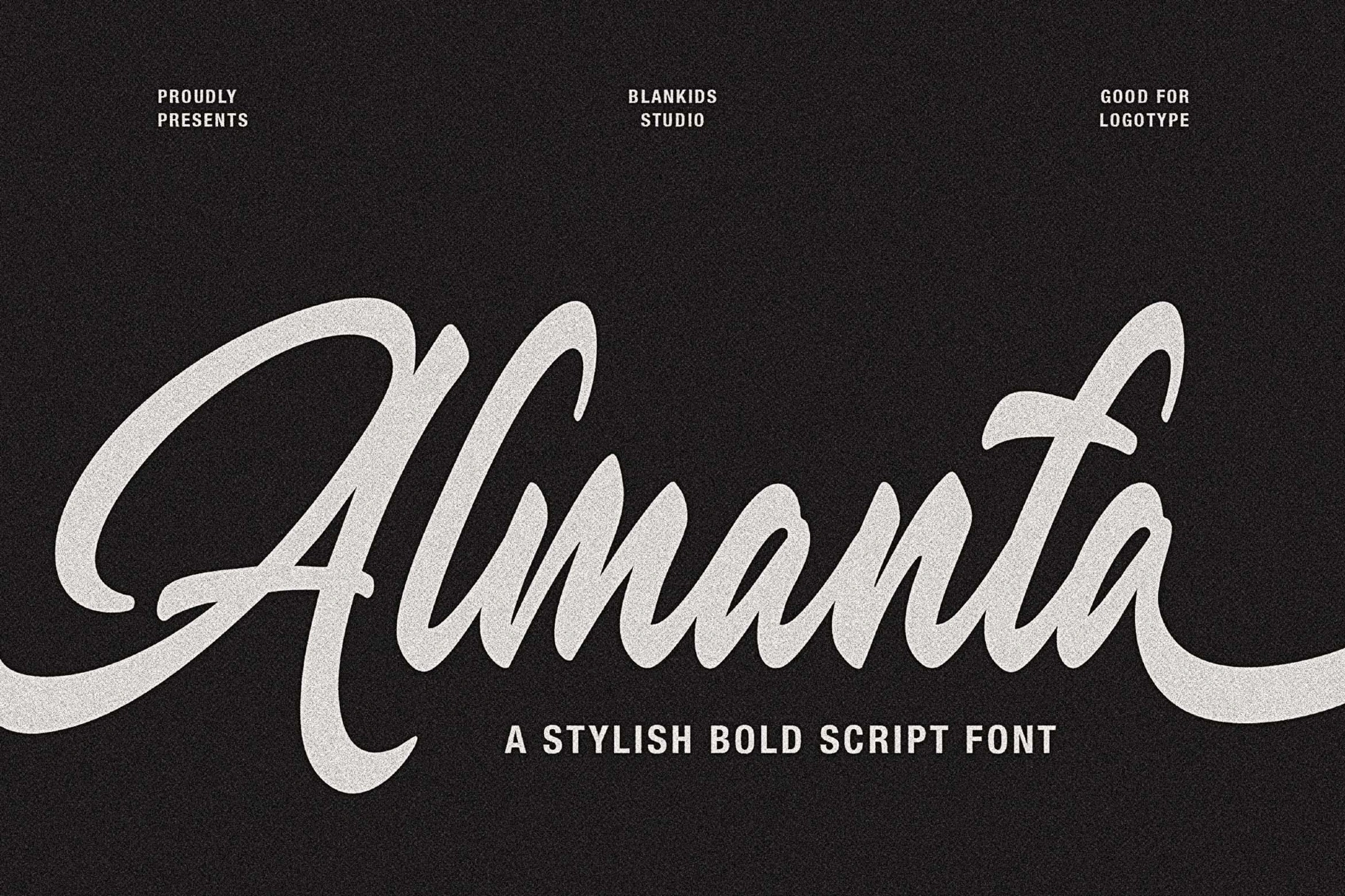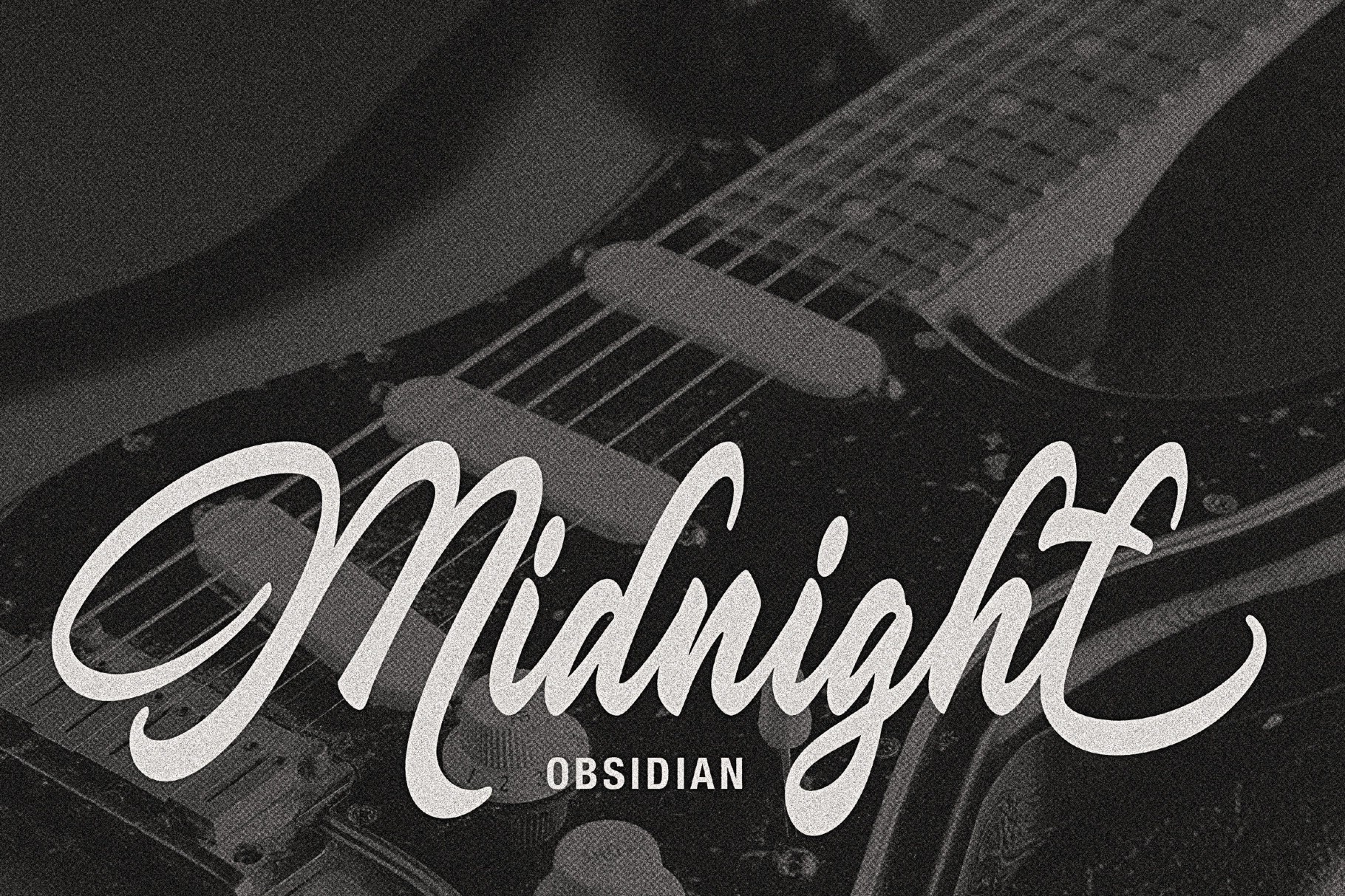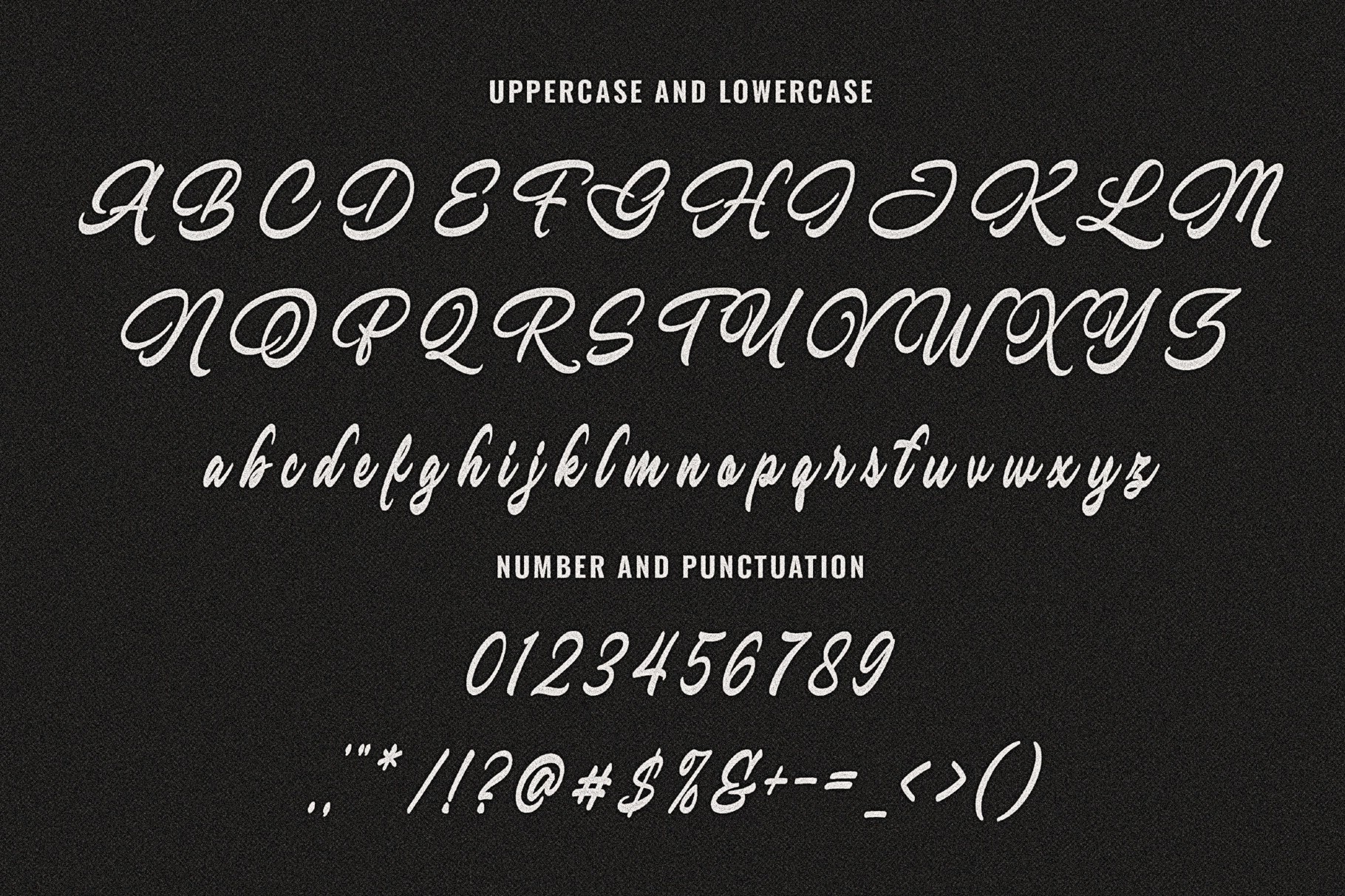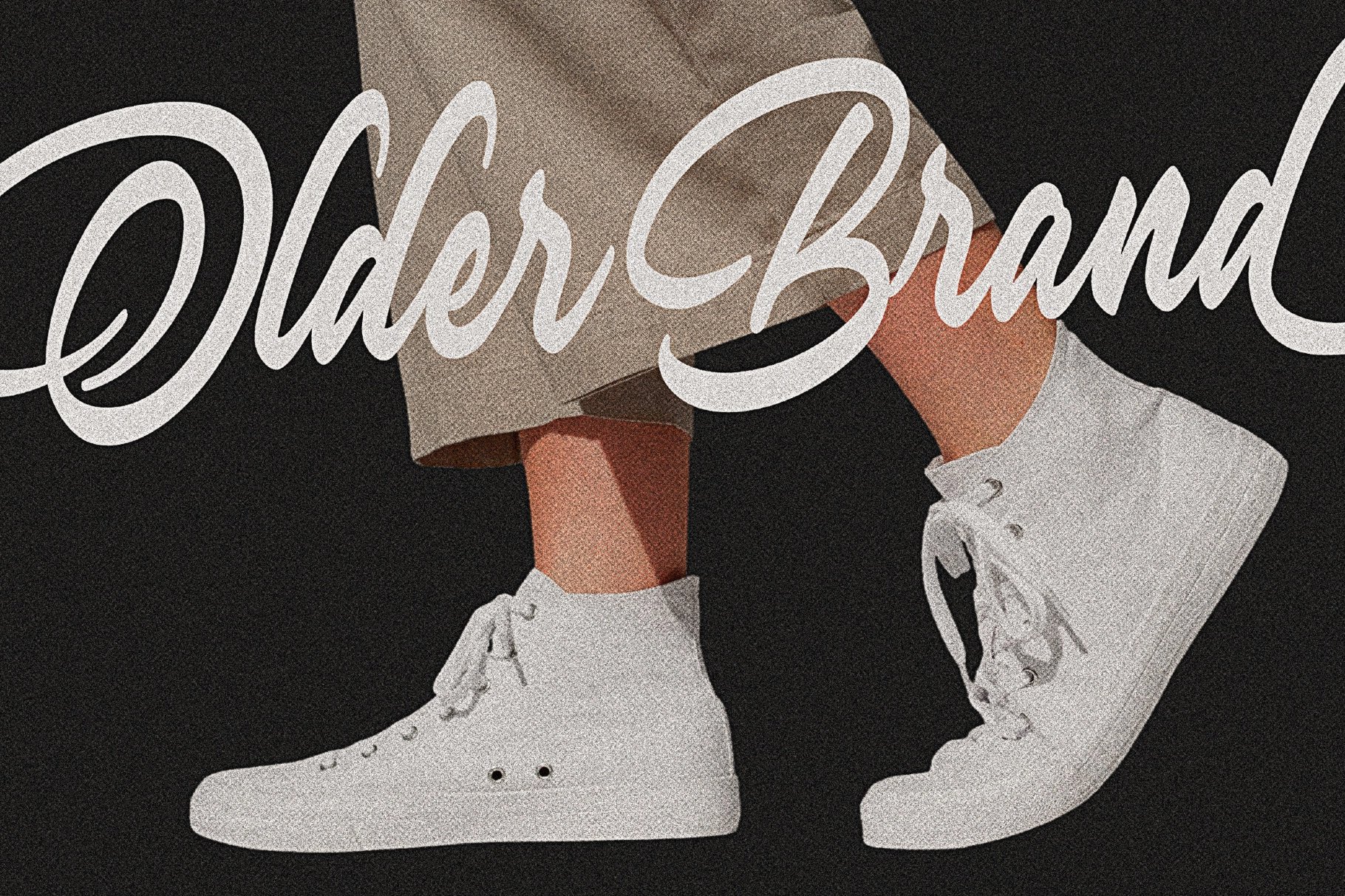
Almanta – A Stylish Bold Script Font
Almanta is a stylish bold script font with smooth curves, confident strokes, and a timeless handcrafted feel. Designed to stand out while remaining elegant, Almanta combines modern script character with a classic vintage touch, making it perfect for strong visual branding and expressive typography.
With its bold weight and flowing letterforms, Almanta delivers excellent readability and personality at the same time. Each character is carefully crafted to create a natural handwritten rhythm, ideal for designs that need warmth, strength, and authenticity.
This font works beautifully for logos, branding, apparel, packaging, posters, quotes, social media graphics, album covers, and merchandise designs. Whether you’re creating a bold logo or an inspiring headline, Almanta adds a powerful yet stylish impression.
- Numbers & punctuation
- Smooth, bold script style
- Clean curves with strong character
- Easy to read and versatile
Perfect for:
Logotypes, brand identity, clothing designs, labels, posters, signage, headlines, quotes, music artwork, and creative projects that need a bold script look.
Almanta is a great choice for designers looking for a script font that feels confident, stylish, and timeless.